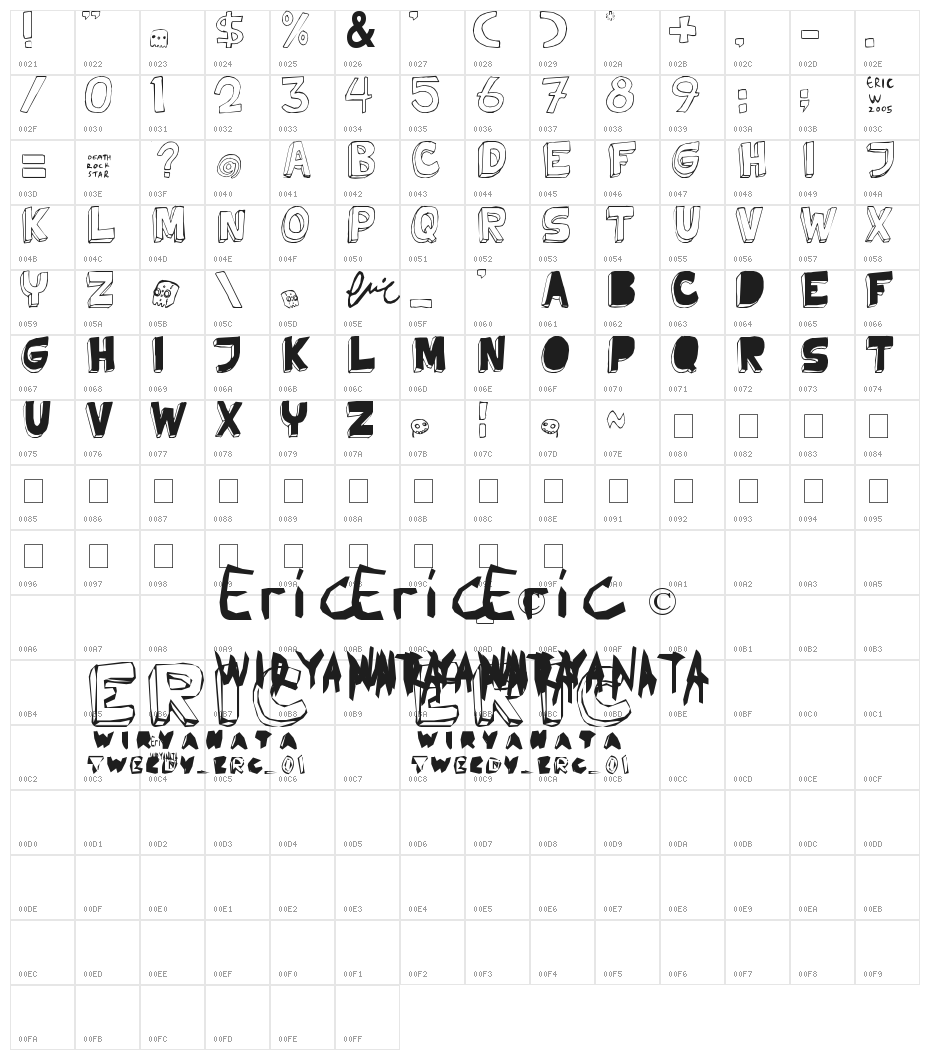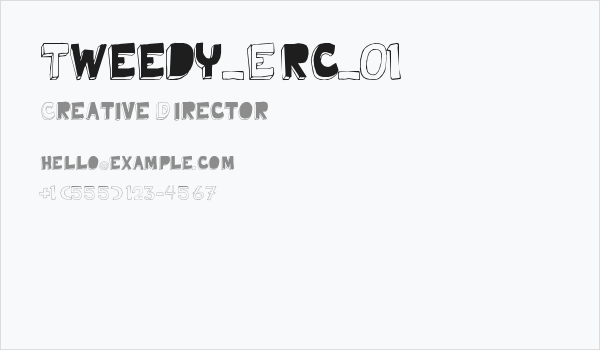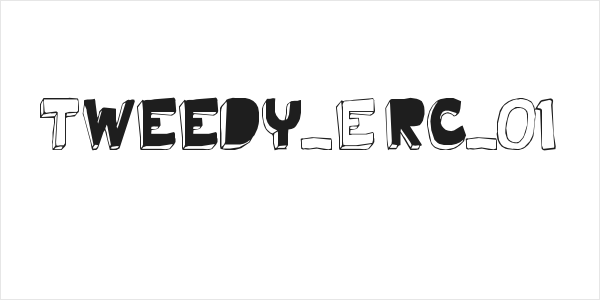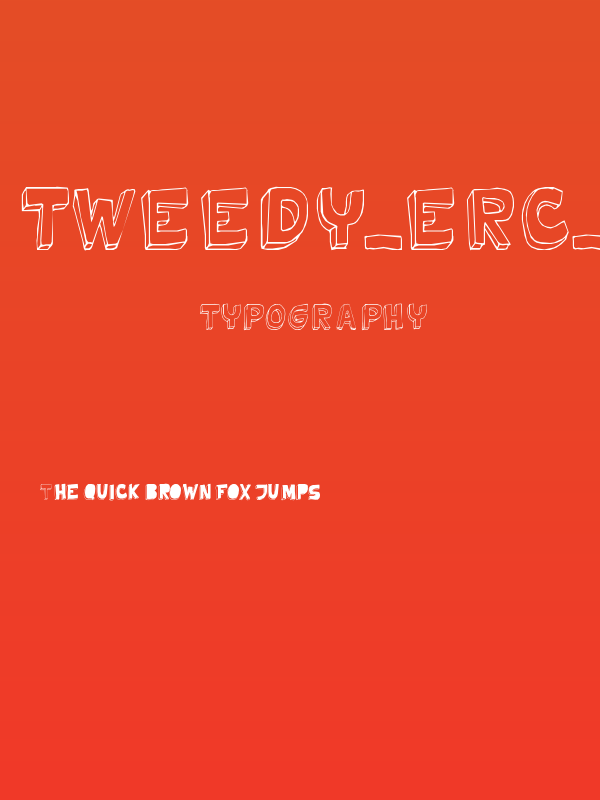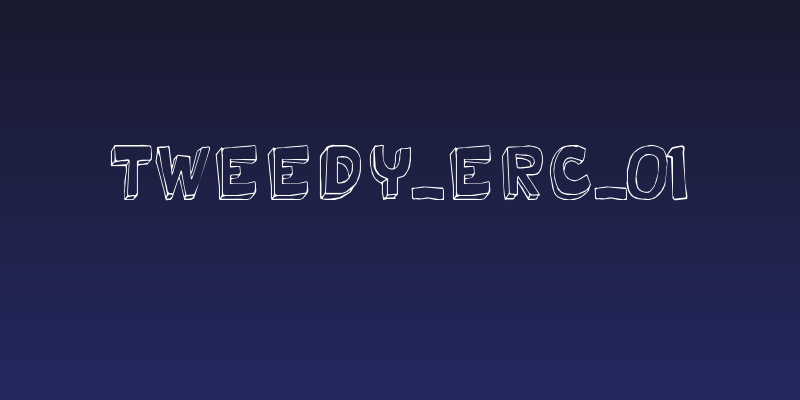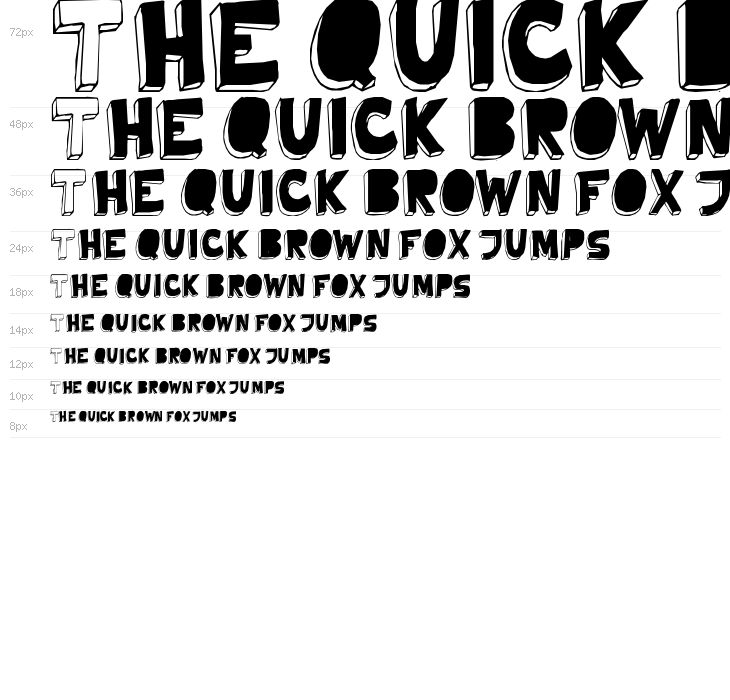
Tweedy_Erc_01 Font
Tweedy_Erc_01 Description
This font features a playful and bold style with a hand-drawn appearance. The uppercase letters have a distinct outline that gives them a three-dimensional look, while the lowercase letters maintain a consistent, bold presence. The numbers and special characters follow the same design, ensuring uniformity across all elements. The font's unique style is characterized by its thick strokes and slightly irregular shapes, adding a whimsical touch. It's ideal for projects that require a fun and engaging visual impact.
| Proposed Projects | Perfect for children's books, comic strips, playful branding, and eye-catching posters. |